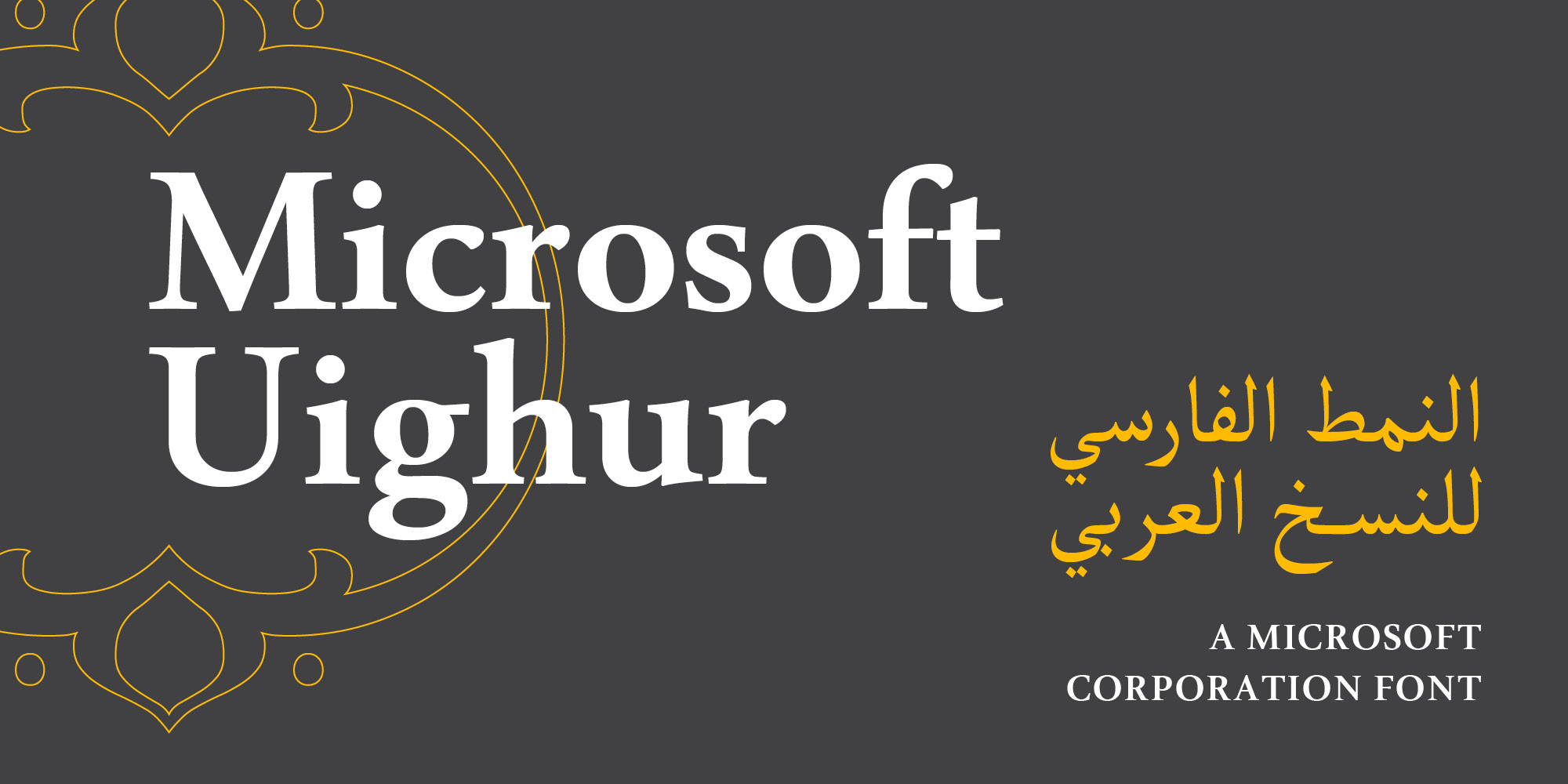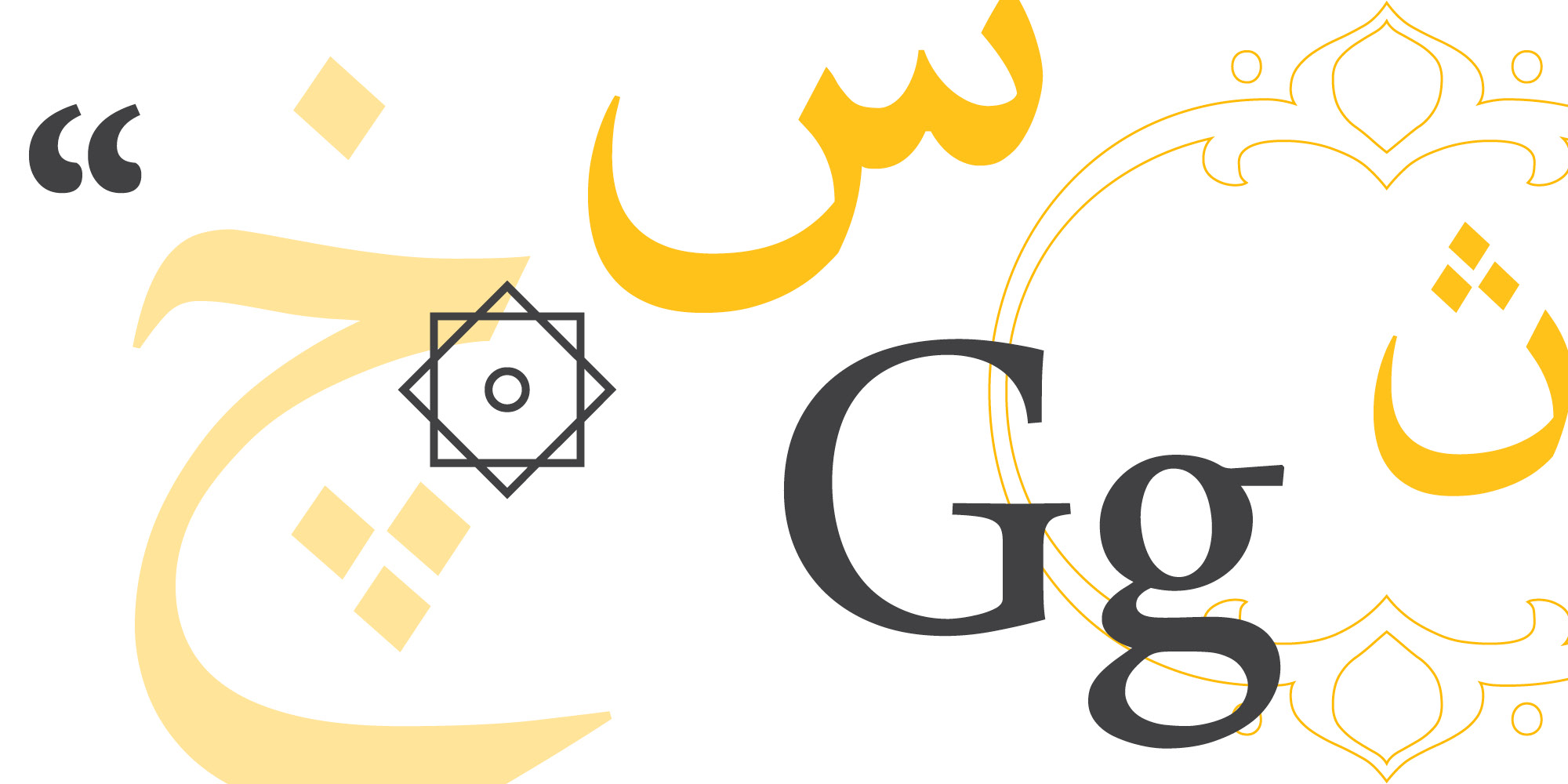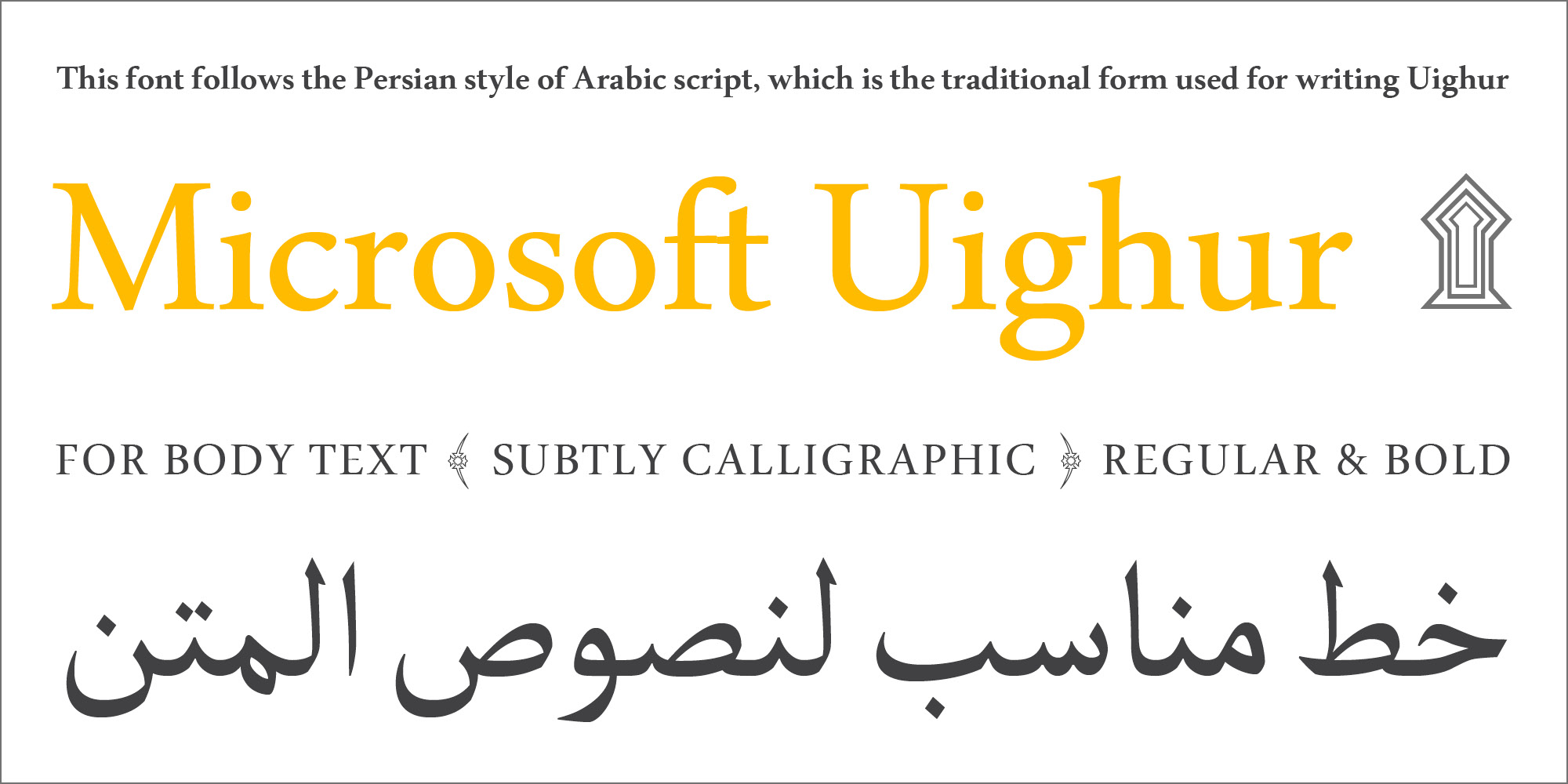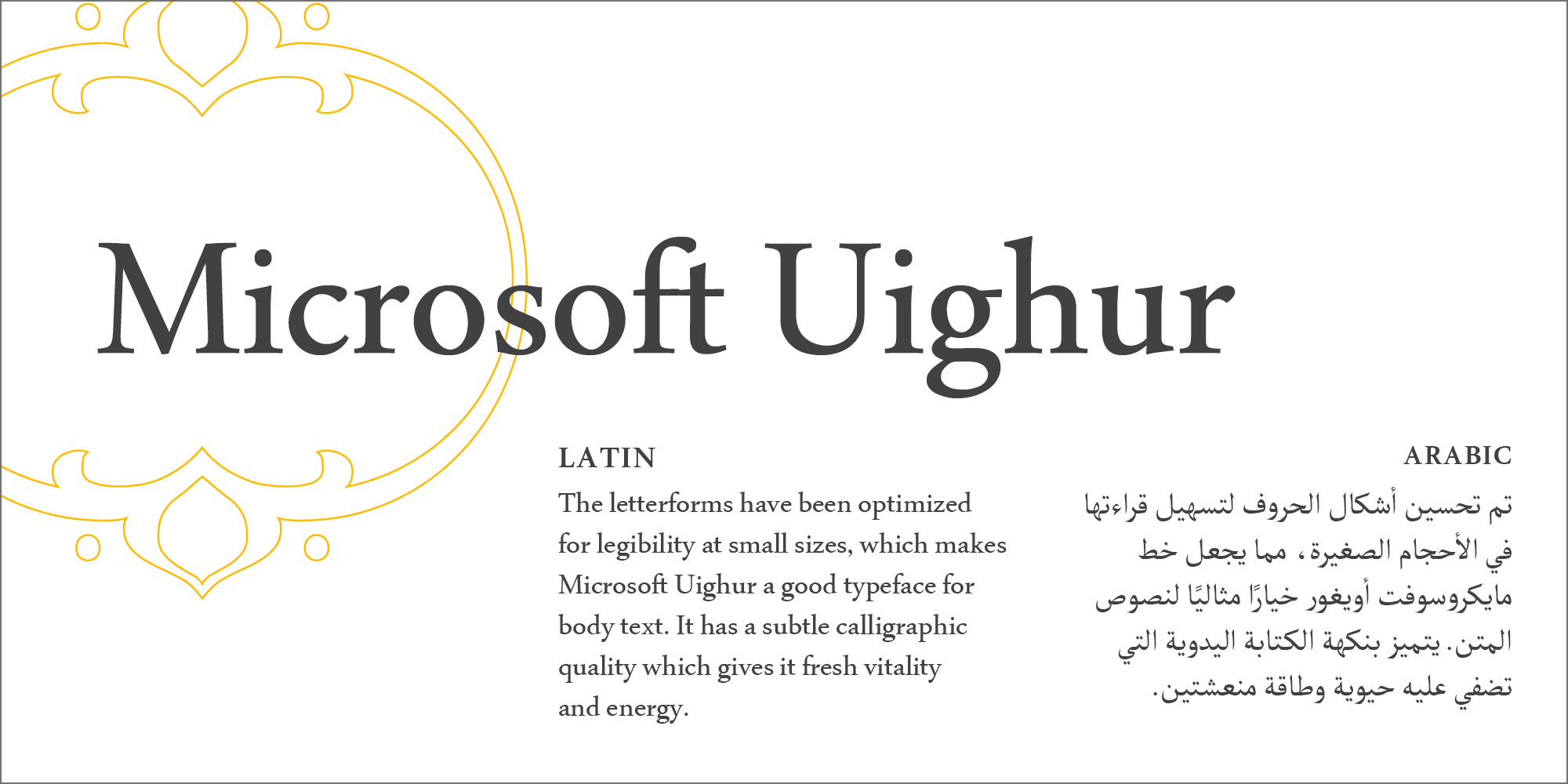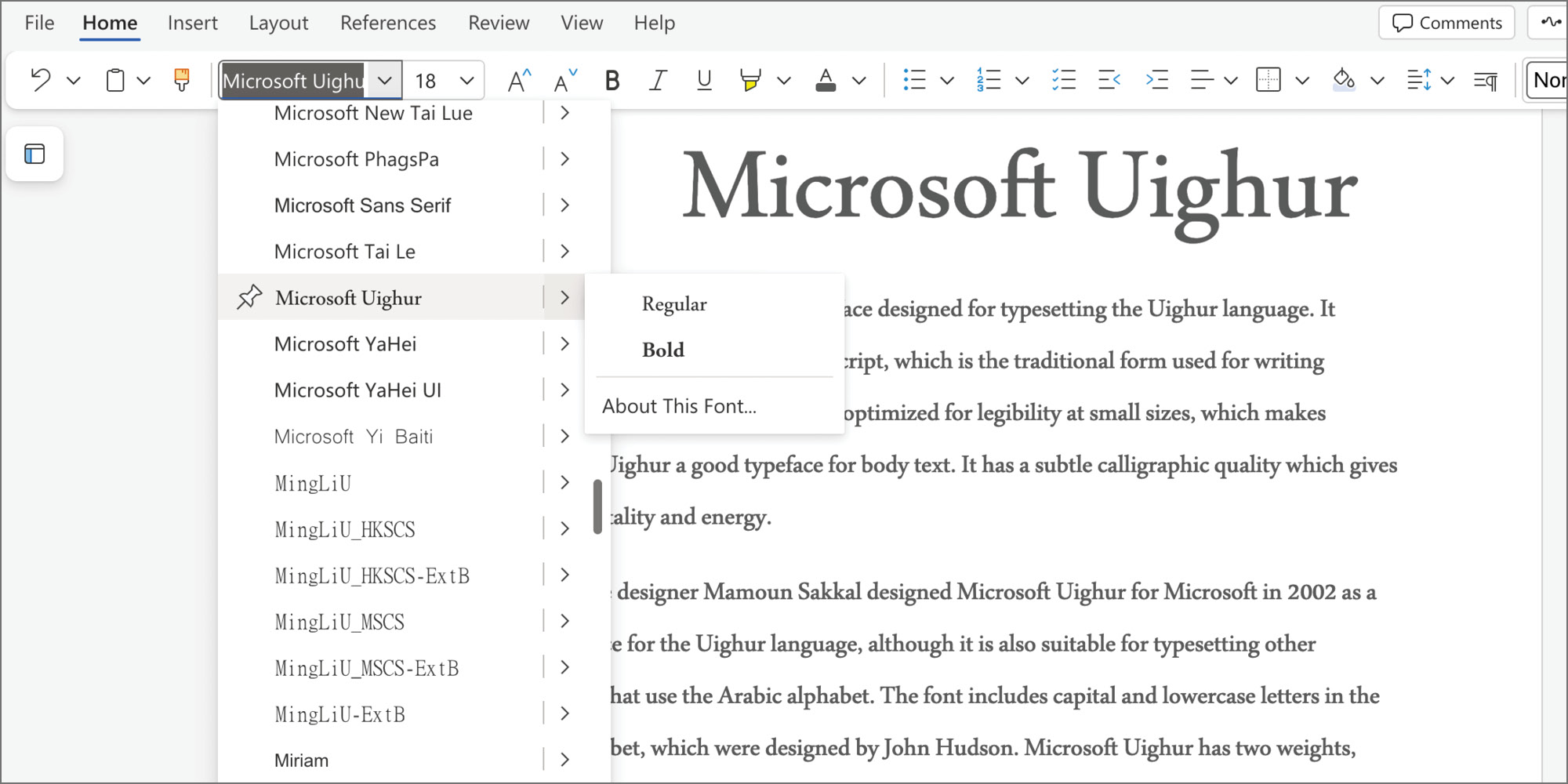
Microsoft Uighur is an Arabic typeface designed for typesetting the Uighur language. It follows the Persian style of Arabic Naskh, which is the traditional form used for writing Uighur. The letter forms have been optimized for legibility at small sizes, which makes Microsoft Uighur a good typeface for body text. It has a subtle calligraphic quality which gives it a fresh vitality and energy.
Arabic type designer Mamoun Sakkal designed Microsoft Uighur for Microsoft in 2002 as a text typeface for the Uighur language, although it is also suitable for typesetting other languages that use the Arabic alphabet such as Arabic, Persian, and Urdu. The font includes capital and lowercase letters in the Latin alphabet, which were designed by John Hudson. Microsoft Uighur has two weights, Regular and Bold; it has no italic styles, which are not normally part of the Arabic script.
This typeface received the Award of Excellence for typeface design from the Type Directors Club Type Design Competition, New York, 2004.